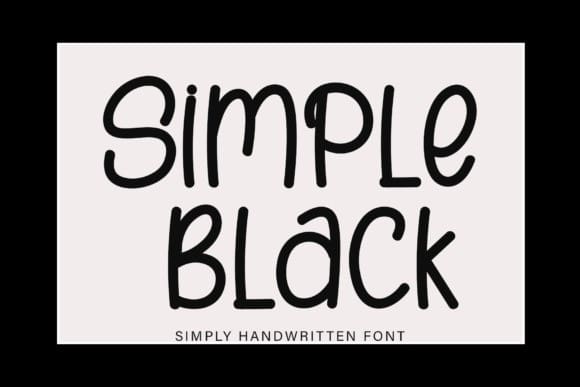
Simple Black Font
Simple Black Font is a neat and beautiful handwritten font described by an elegant touch, perfect for your favorite projects. Fall in love with its incredibly distinct and timeless style, and use it to create spectacular designs!